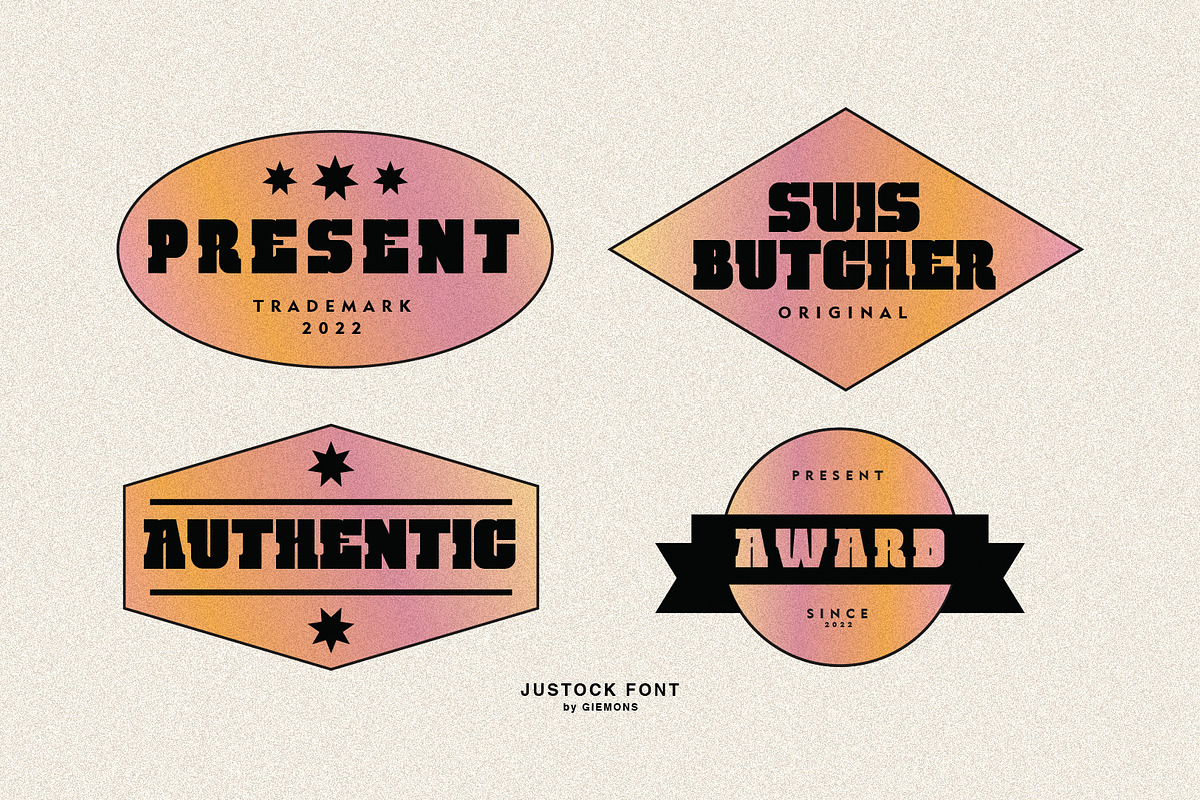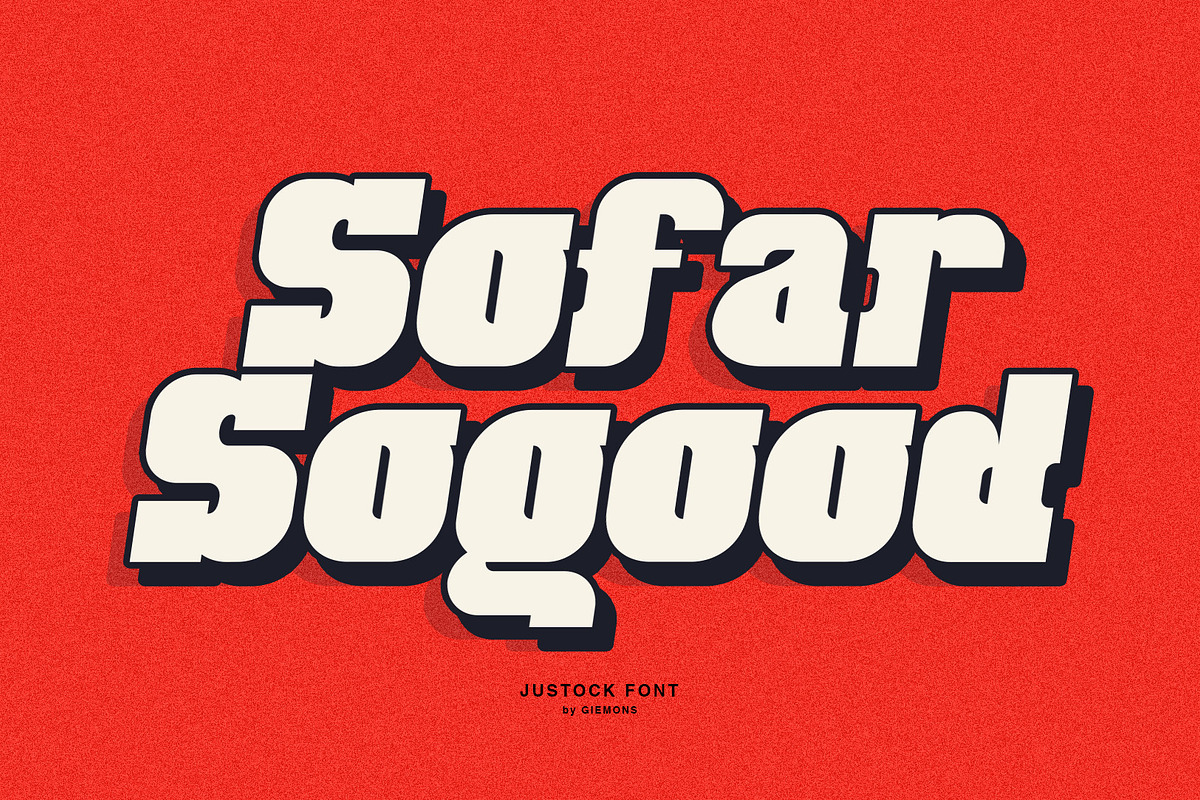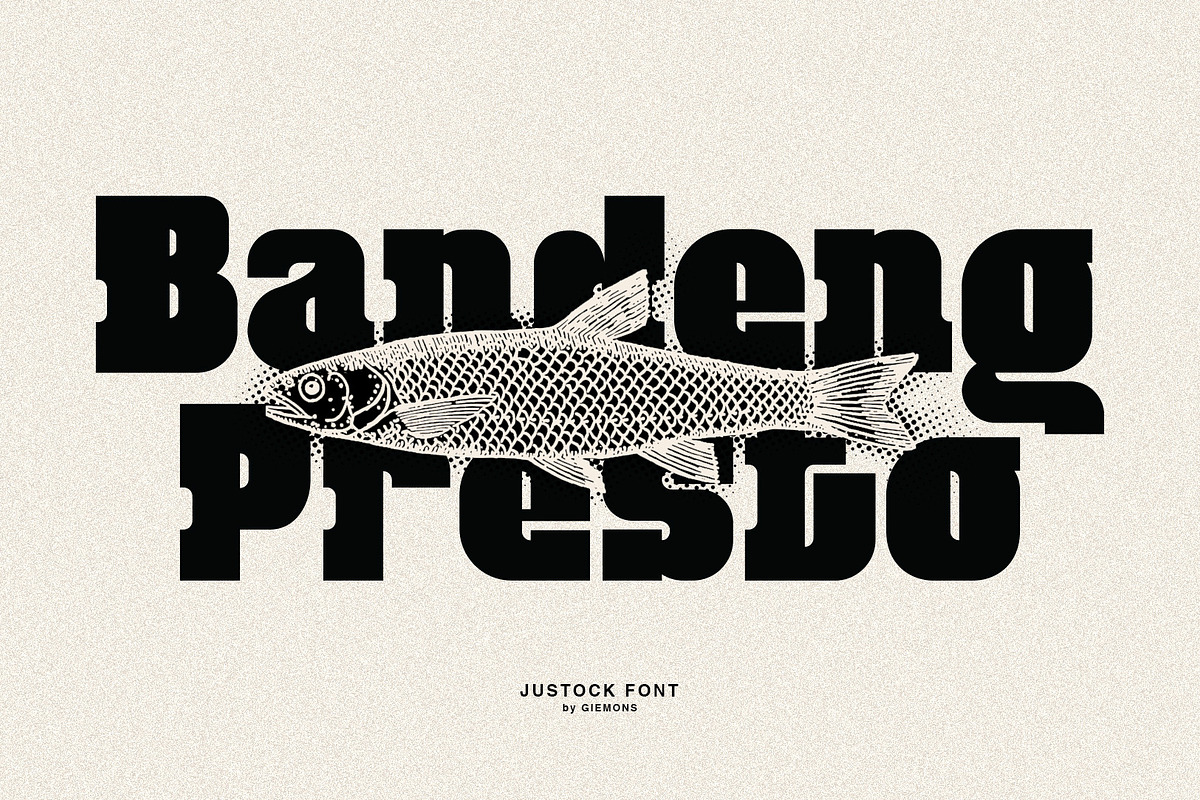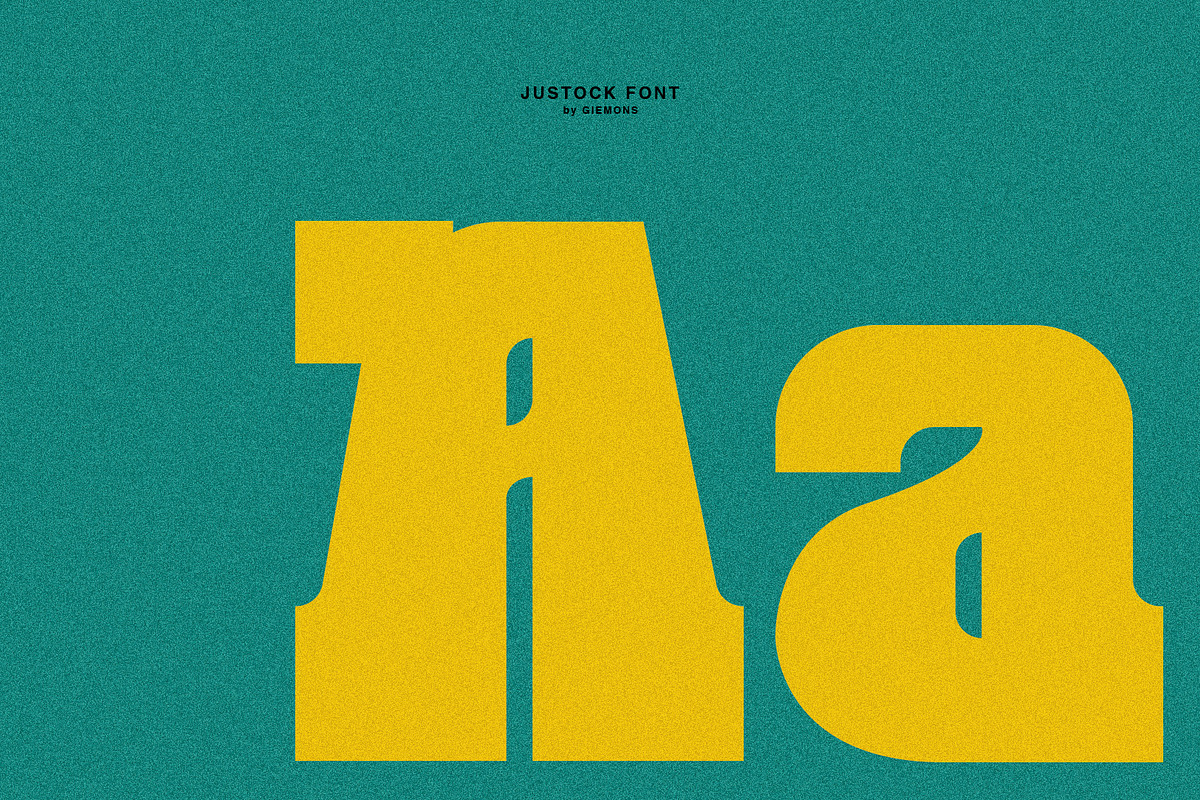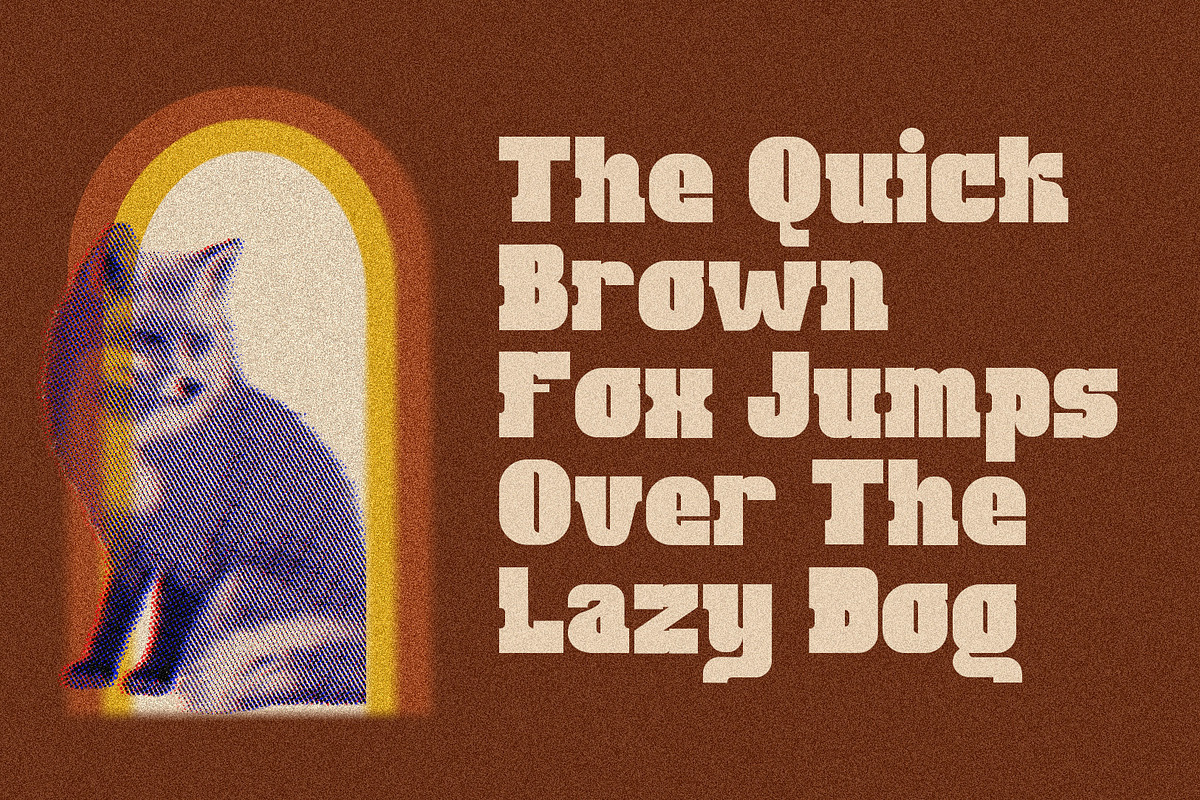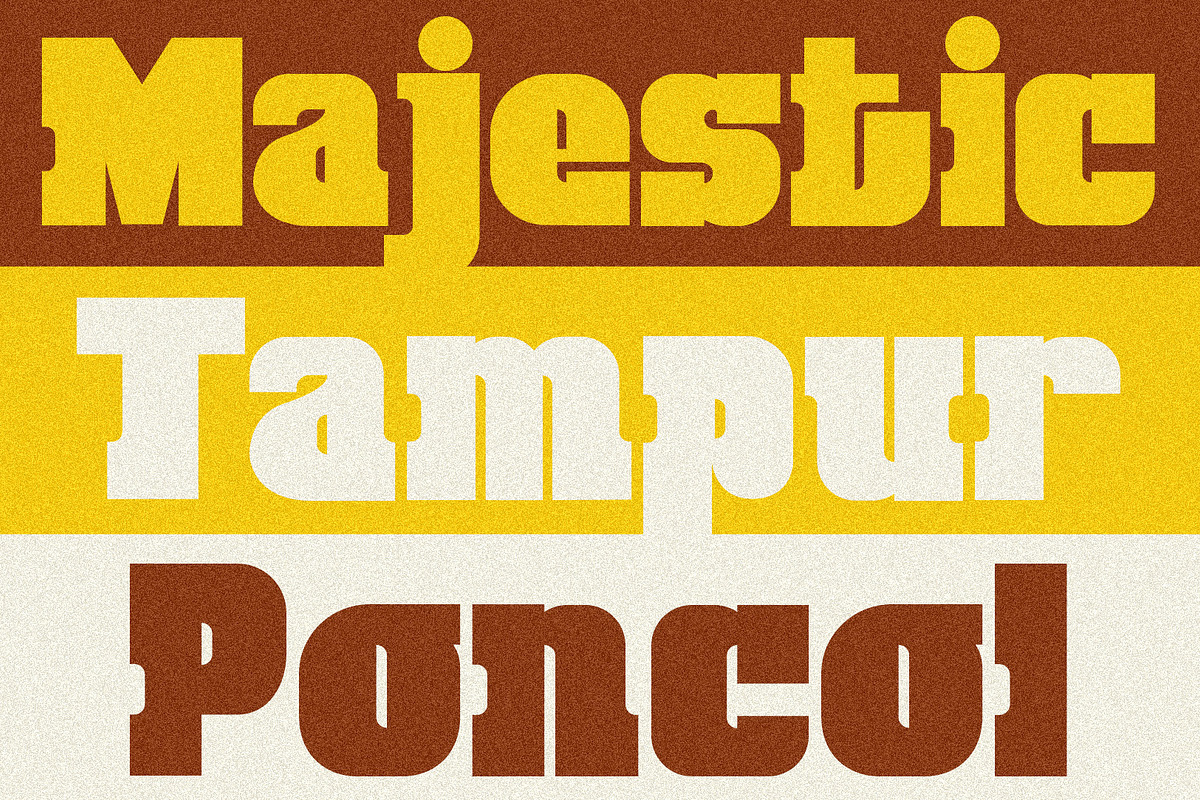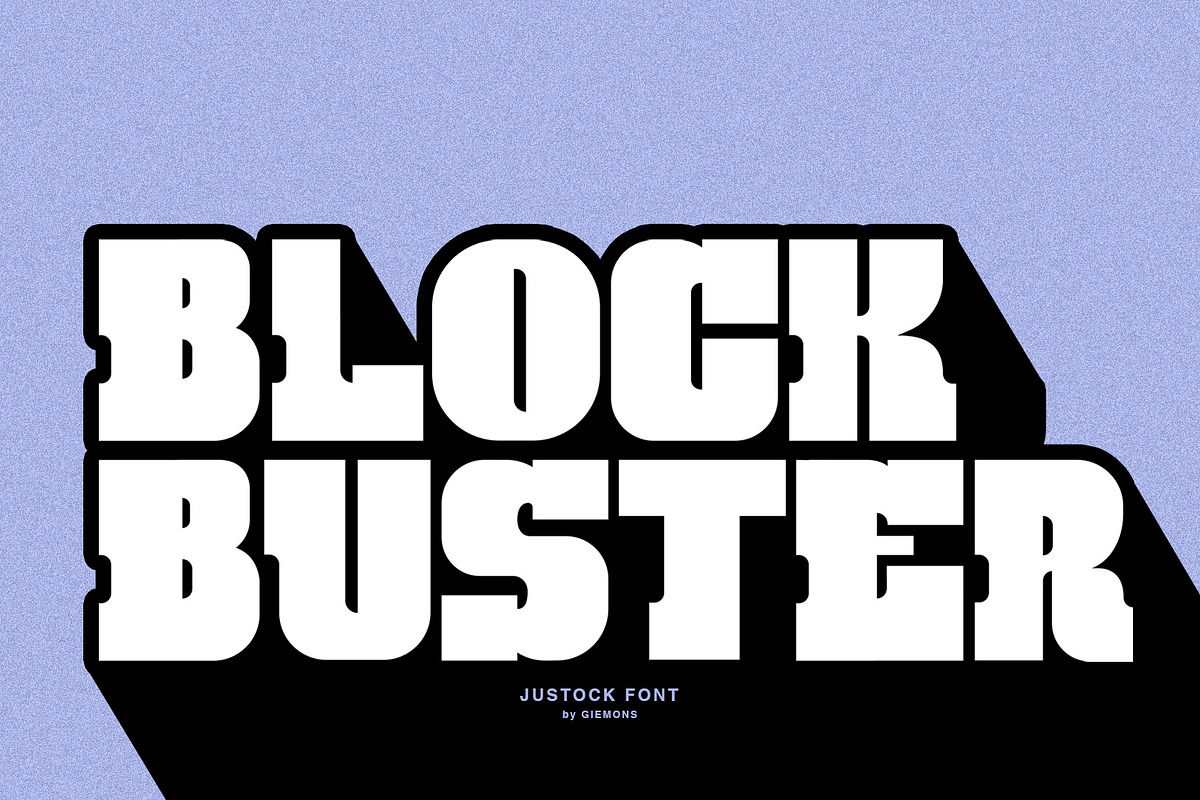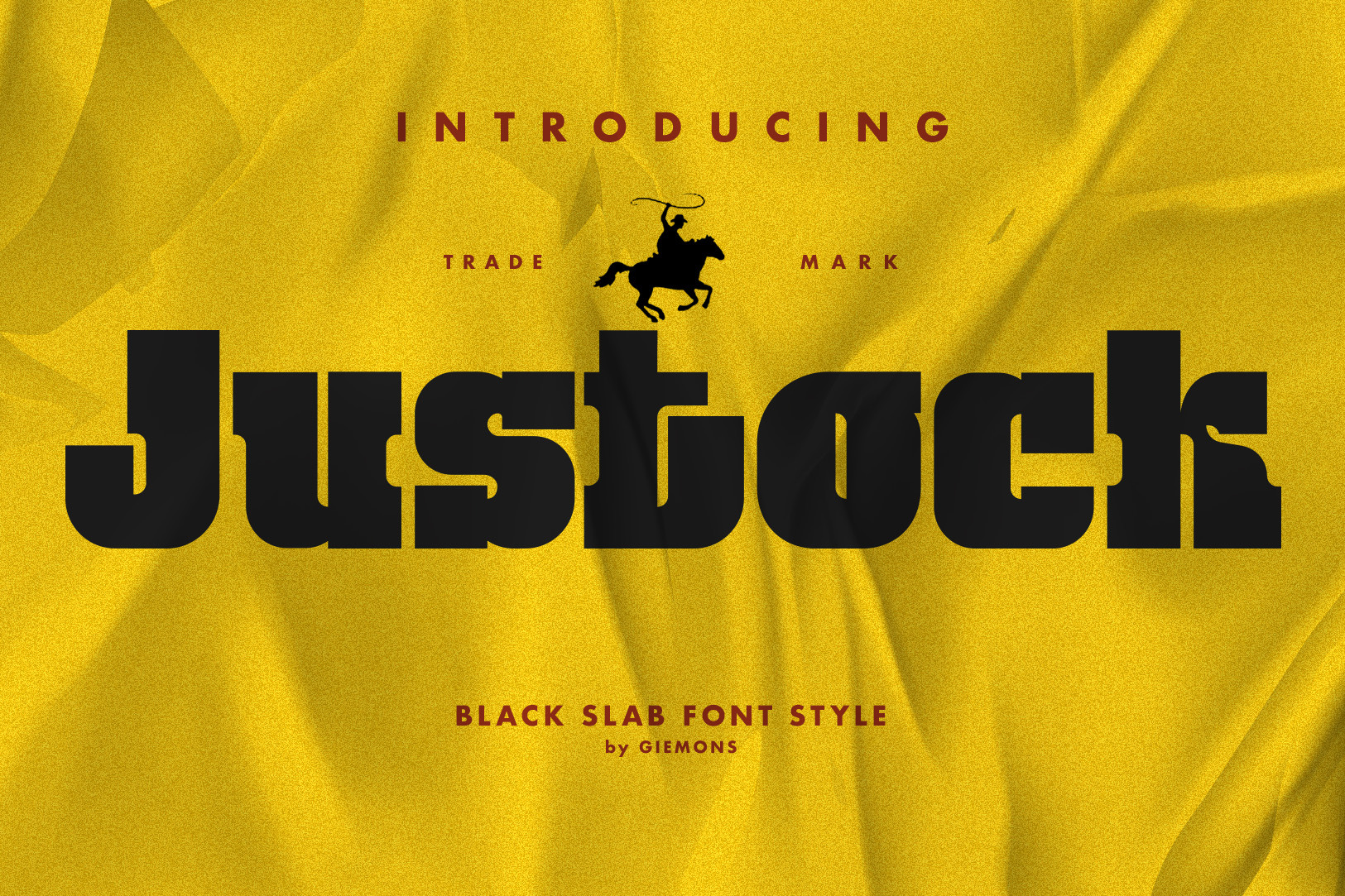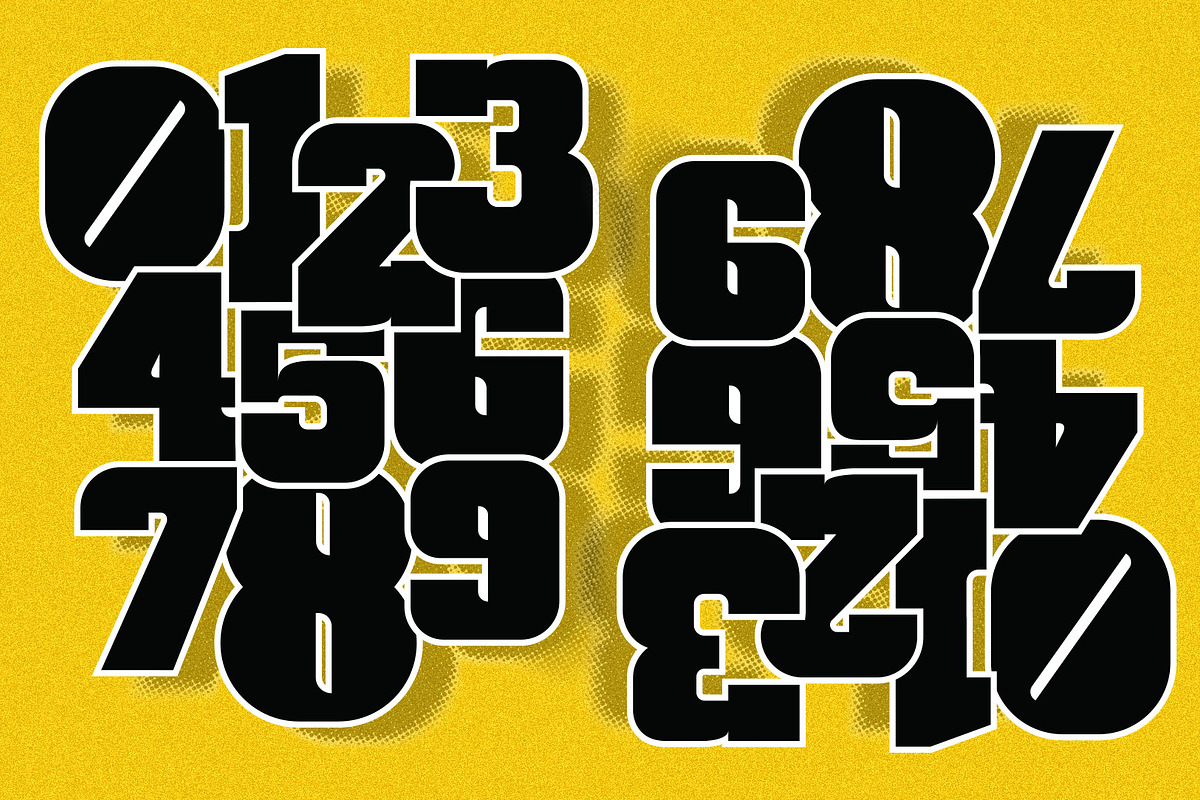
Justock Font - Black Slab
a JUSTOCK Font with a BLACK SLAB shape style, combines classic modern styles to make it look very trendy and more standout.. easy to use for branding, logo, digital marketing, and any more.